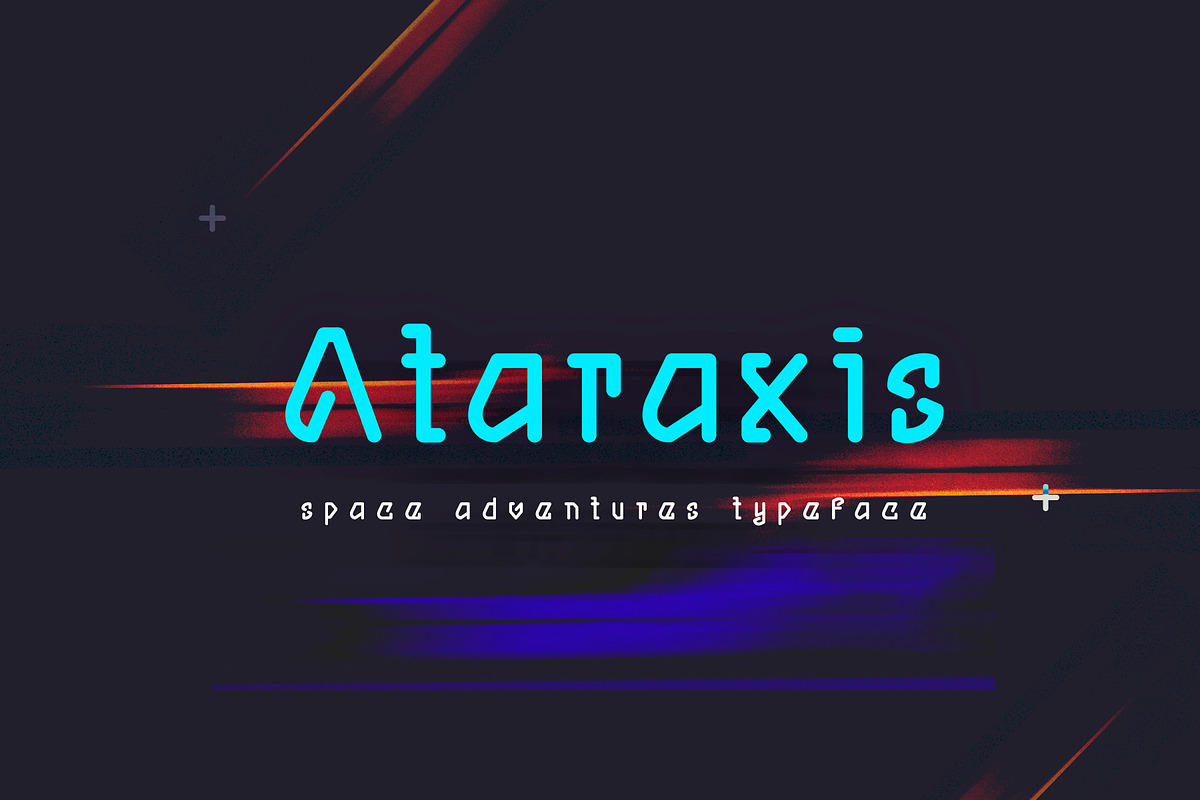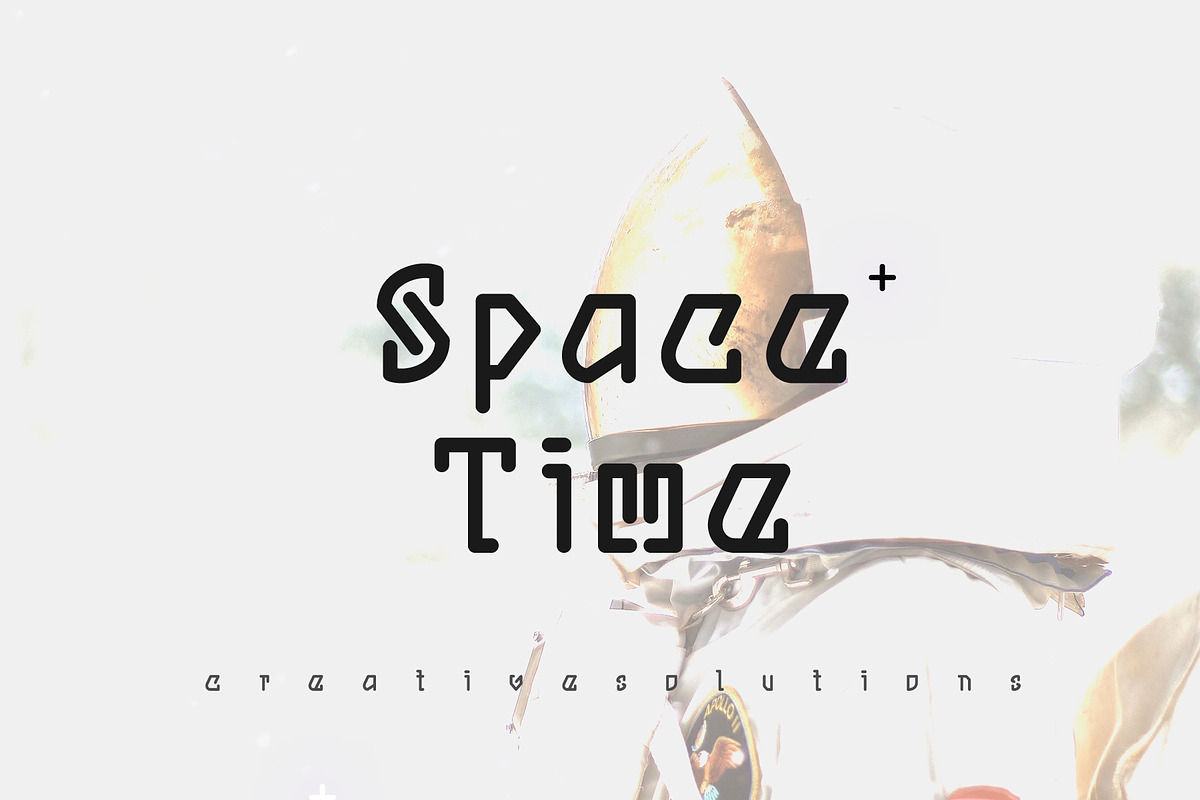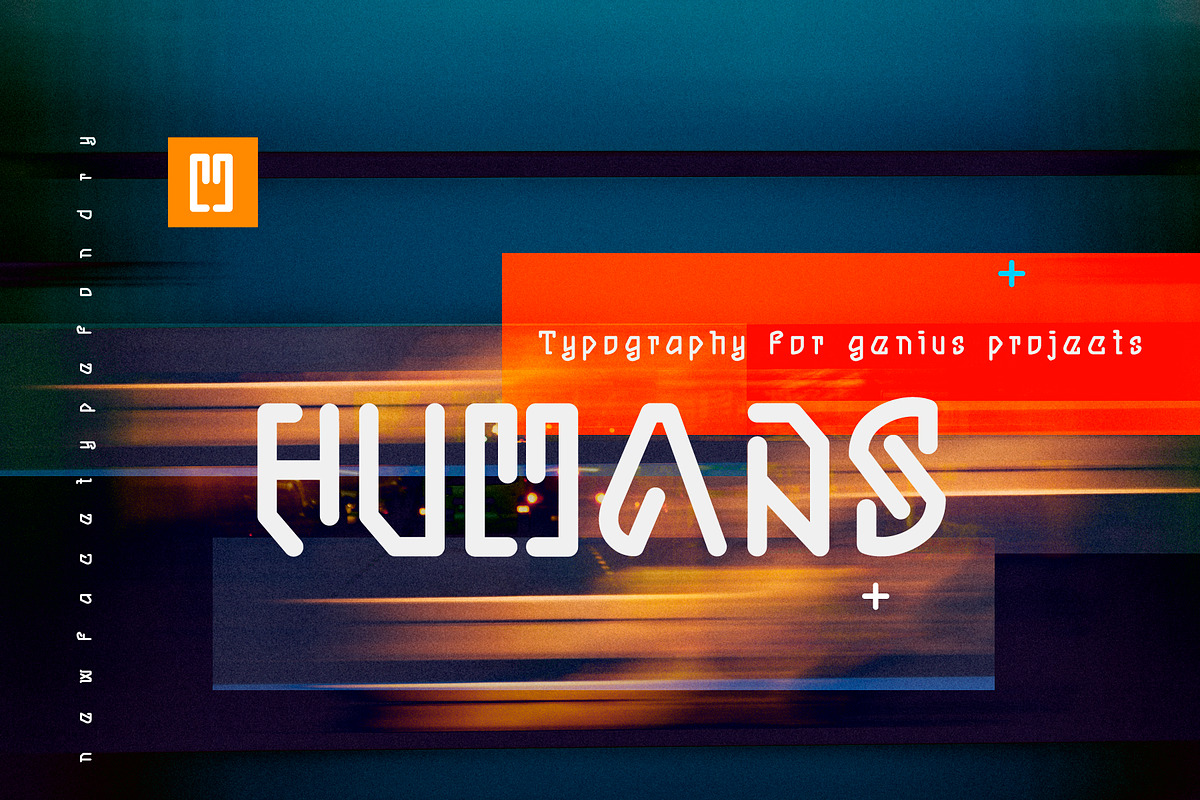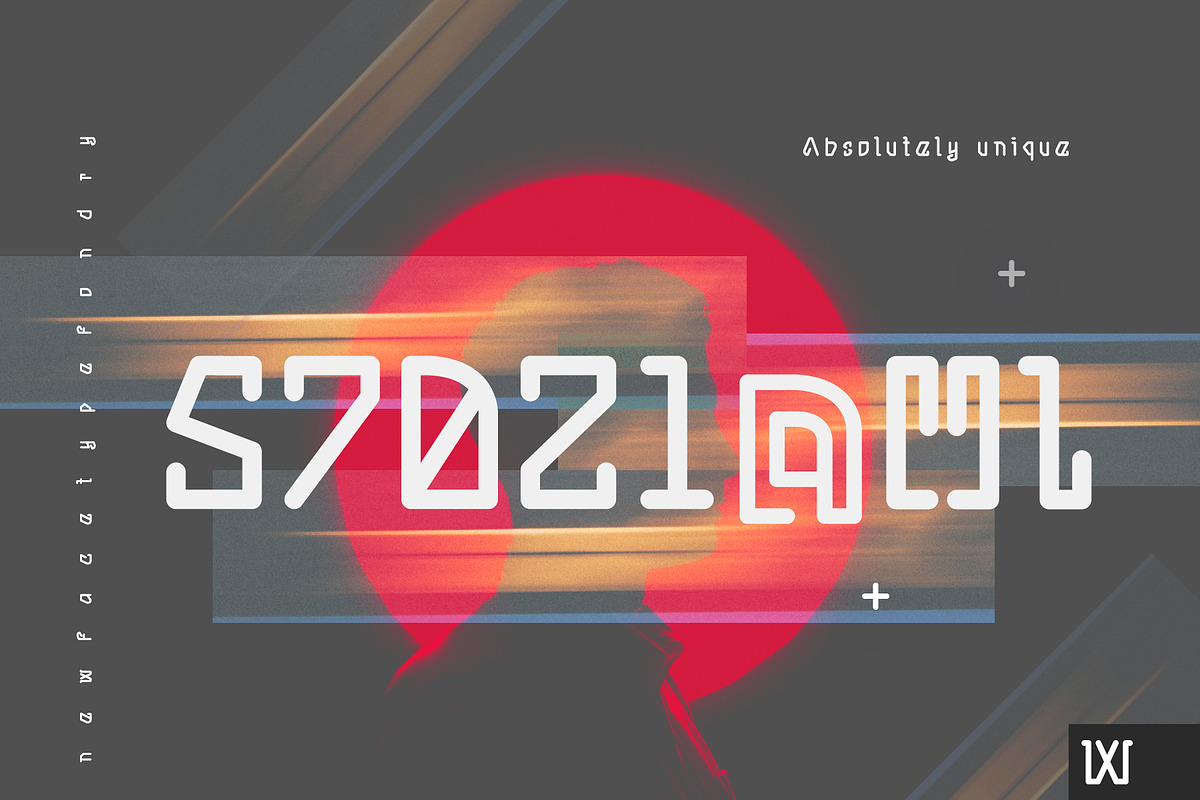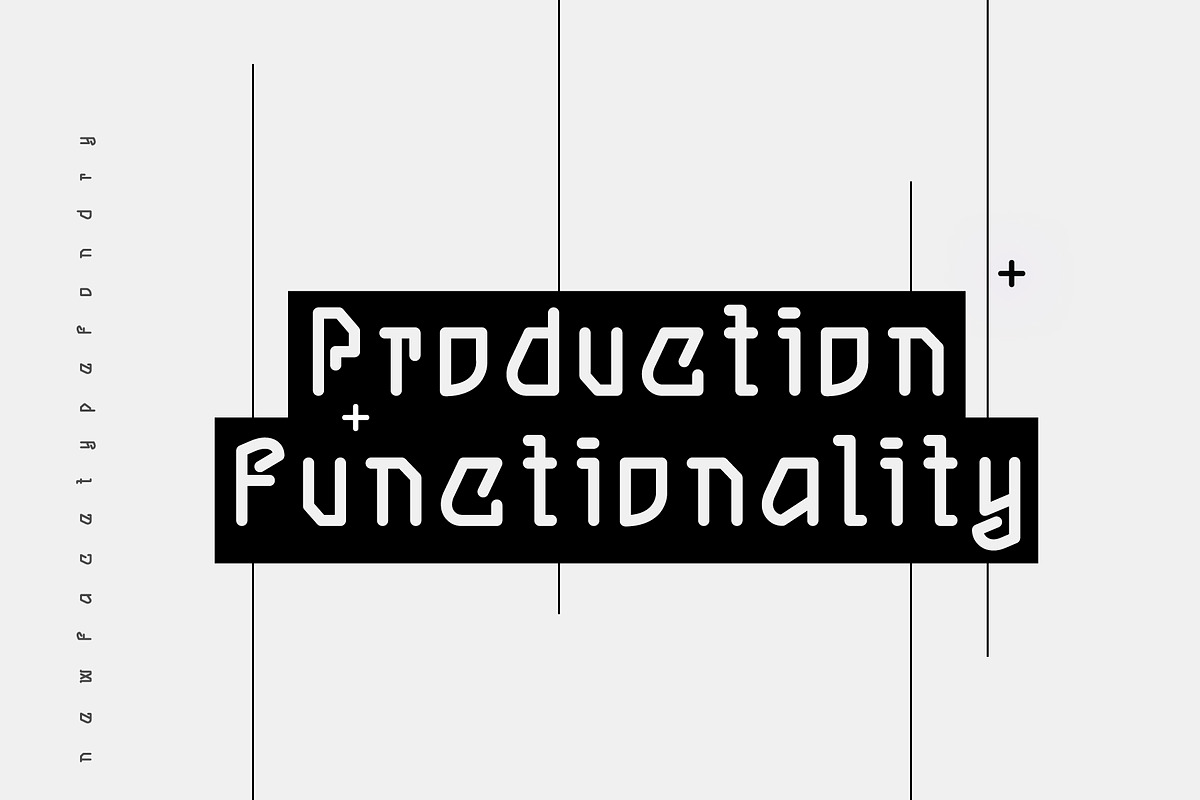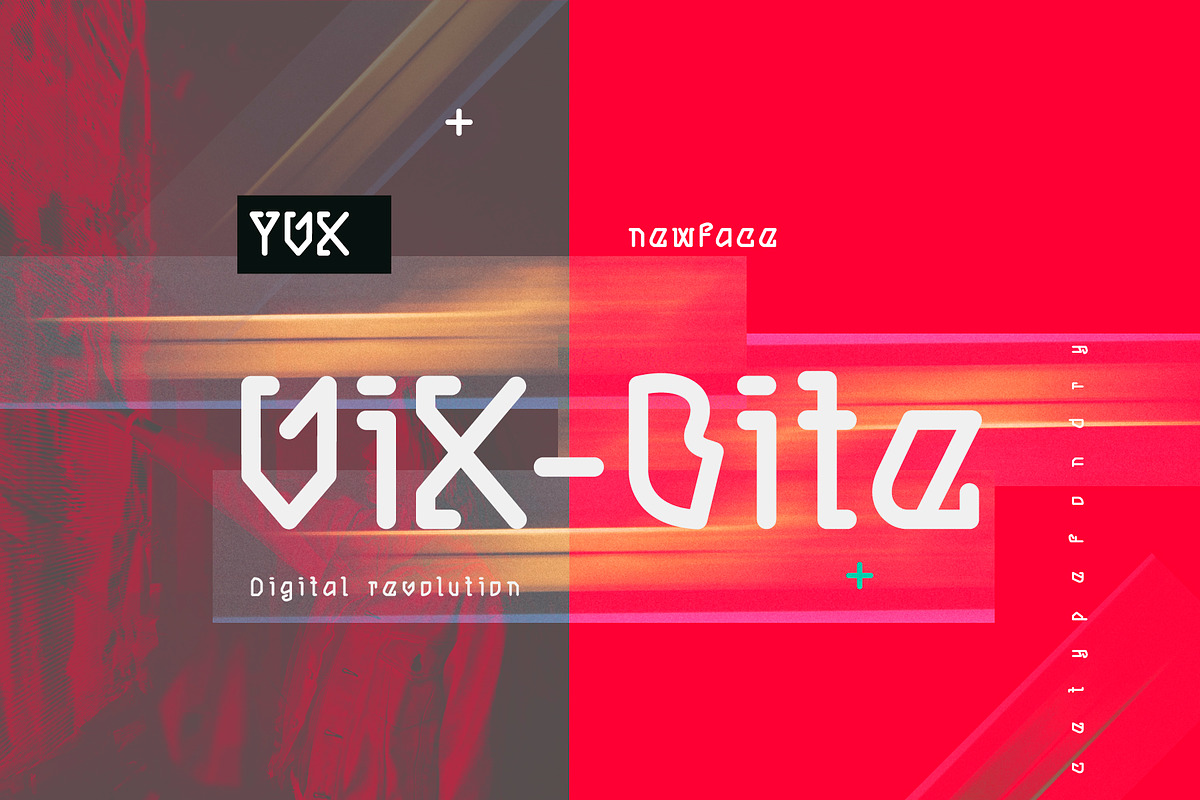
Ataraxis Typeface
Introducing Ataraxis, a new modern font that will complement your collection and make your projects unique. Can be used as accents or as descriptors, as well as headings or as the main phrase, it all depends on your imagination.
Why Ataraxis Typeface is worth a look
Ataraxis Typeface by Newface fits naturally into Branding, posters, packaging, typography.